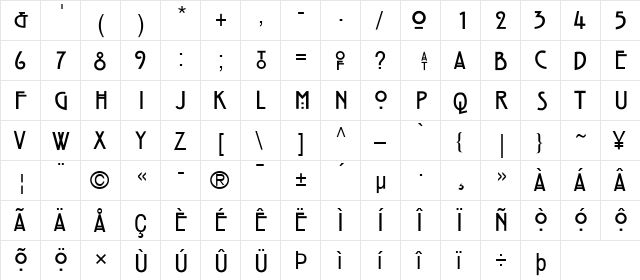
Hill House Medium
Medium · //hicksdesign 2003 Jon Hicks ·
DesignerJon Hicks
Design Context for Hill House Typeface
Hill House takes a measured approach to typography — its balanced proportions and neutral character make it a reliable workhorse for both digital and print work.